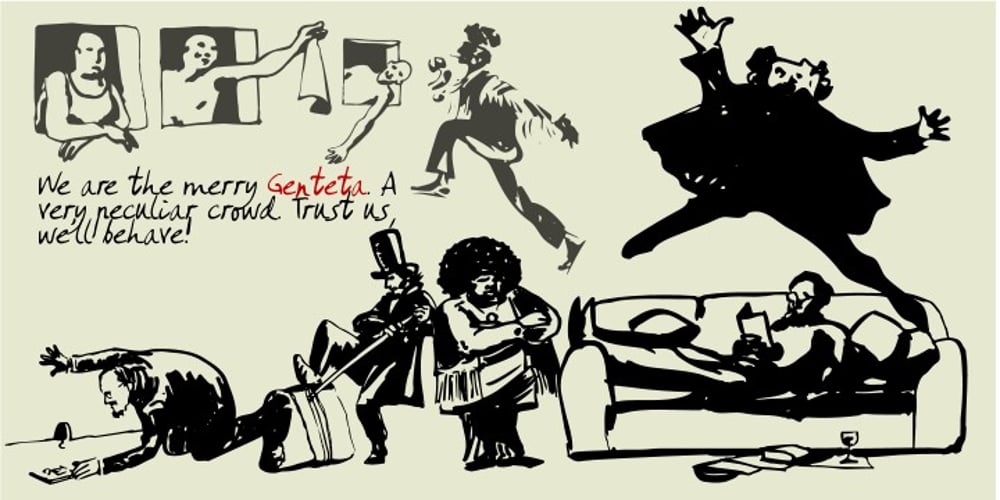
Genteta
Genteta font
Genteta Font Family was designed by Joan M. Mas and published by Typephases. Genteta contains 3 styles and family package options. In the tradition of the stock cuts that printing type foundries offered as metal, these spot illustrations remind you —for their look and technique— of vintage publications like victorian age newspapers and magazines. Similar to their counterparts in the Whimsies, Absurdies, Ombres, Bizarries and Whimsies series, the Genteta is another collection of little people in funny and absurd situations, recreated in black ink, from imagination and with no reference or models, and then carefully digitized. The Genteta trio of dingbats includes more than 150 new images. Their vectorial file format means you can use them at any size with no loss of quality. Every Genteta dingbat offers ready-made images for a variety of creative projects. They can be used as they come or easily customized in any graphics program. At small sizes they are ideal spot illustrations with a whimsical touch; at large sizes they can bring a whole page, a spread or even a big poster to life. Use them in creative projects including, but not limited to, flyers, brochures, book jackets and editorial illustration.